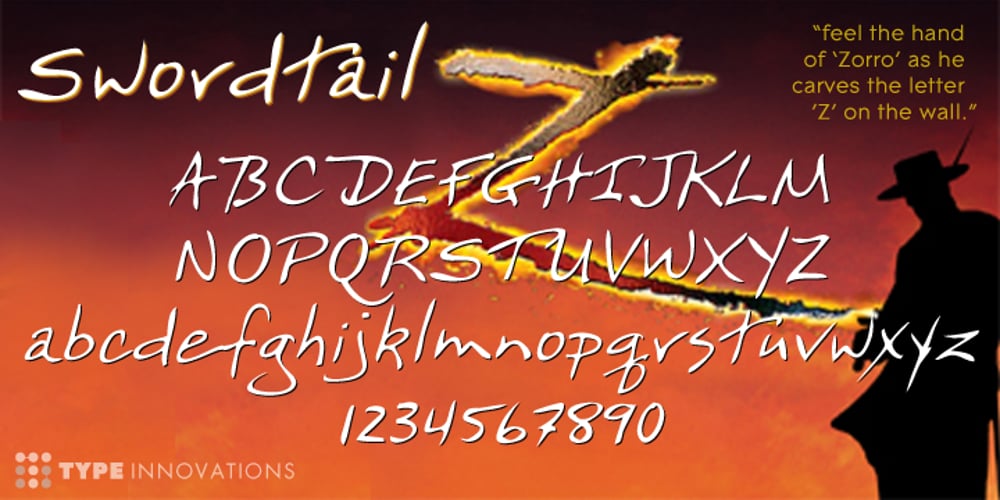
Swordtail
Swordtail font
Swordtail Font Family was designed by Alex Kaczun and published by Type Innovations. Swordtail contains 1 styles and family package options. A friend bought me a Chinese calligraphic brush set in a beautifully decorated box. I started to letter the alphabet on parchment, in my own hand, using quick strokes and found the resulting script had an interesting energy to it. After further refinement in my font application software ‘Swordtail’ was born. A great free-hand script.